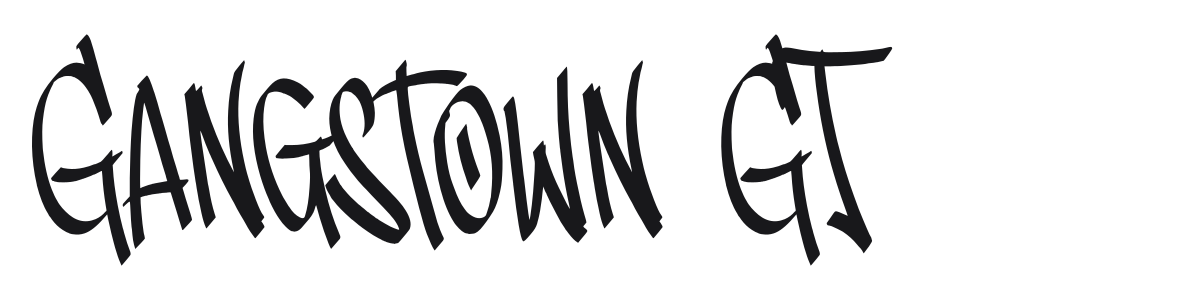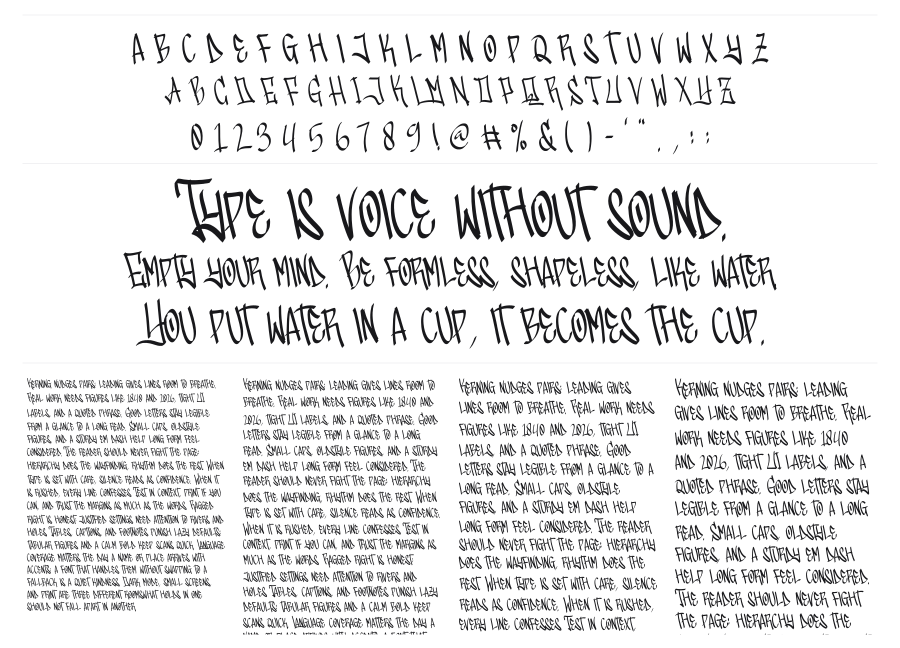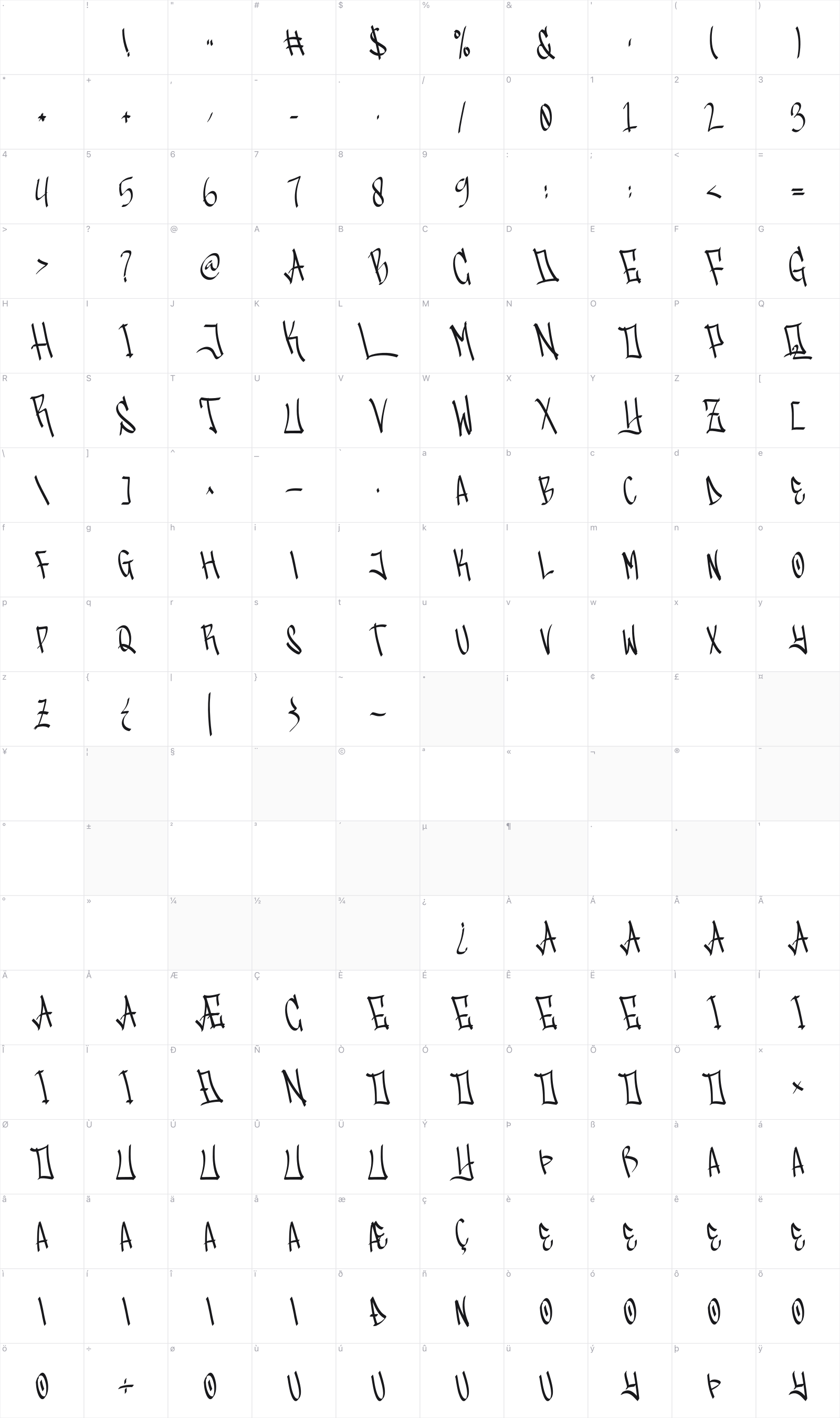
Gangstown GT
Gangstown GT is a bold graffiti-style display font with raw, angular energy drawn from wild-style street lettering. Letters overlap and spike with sharp terminals and dramatic stroke contrast, packing serious visual weight into every character. It hits hard in poster headlines, album artwork, and urban branding.